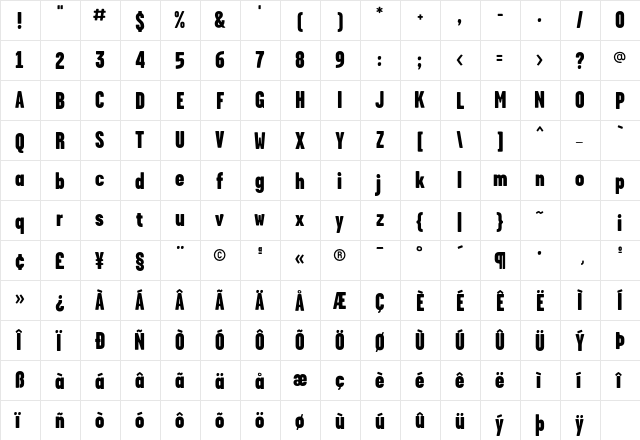
Garage Gothic FB Black Regular
Design Context for Garage Gothic FB Black Typeface
Garage Gothic FB Black takes a clean, functional approach — its unadorned letterforms prioritise legibility and work reliably across screen and print environments.
Font Pairing: Works well alongside a characterful serif or display font that can carry the expressive load while Garage Gothic FB Black handles the functional copy.
Pro Tip: Use Garage Gothic FB Black for UI labels, navigation, and short-form body copy where clean legibility is the priority.